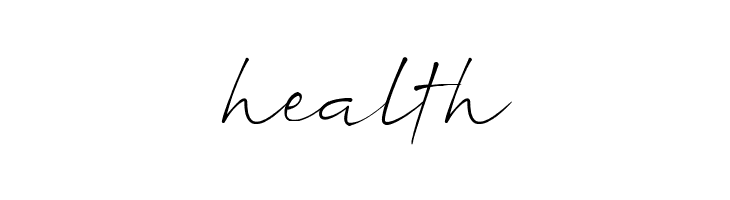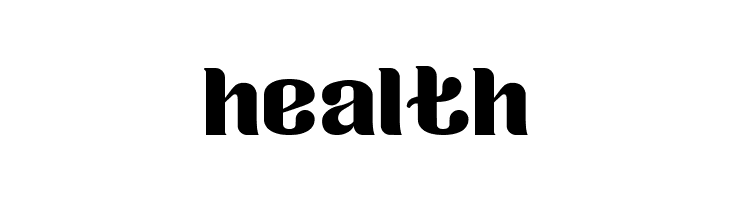
A classic serif font with sharp serifs and a sophisticated appearance.
A modern, rounded sans-serif font with a friendly and approachable design.
A modern, elegant script font with a fluid, handwritten style.
A bold, decorative font with a blend of modern and vintage elements.
A playful, hand-drawn font with a dynamic, tubular design.
A playful, rounded serif font with bold and whimsical characteristics.